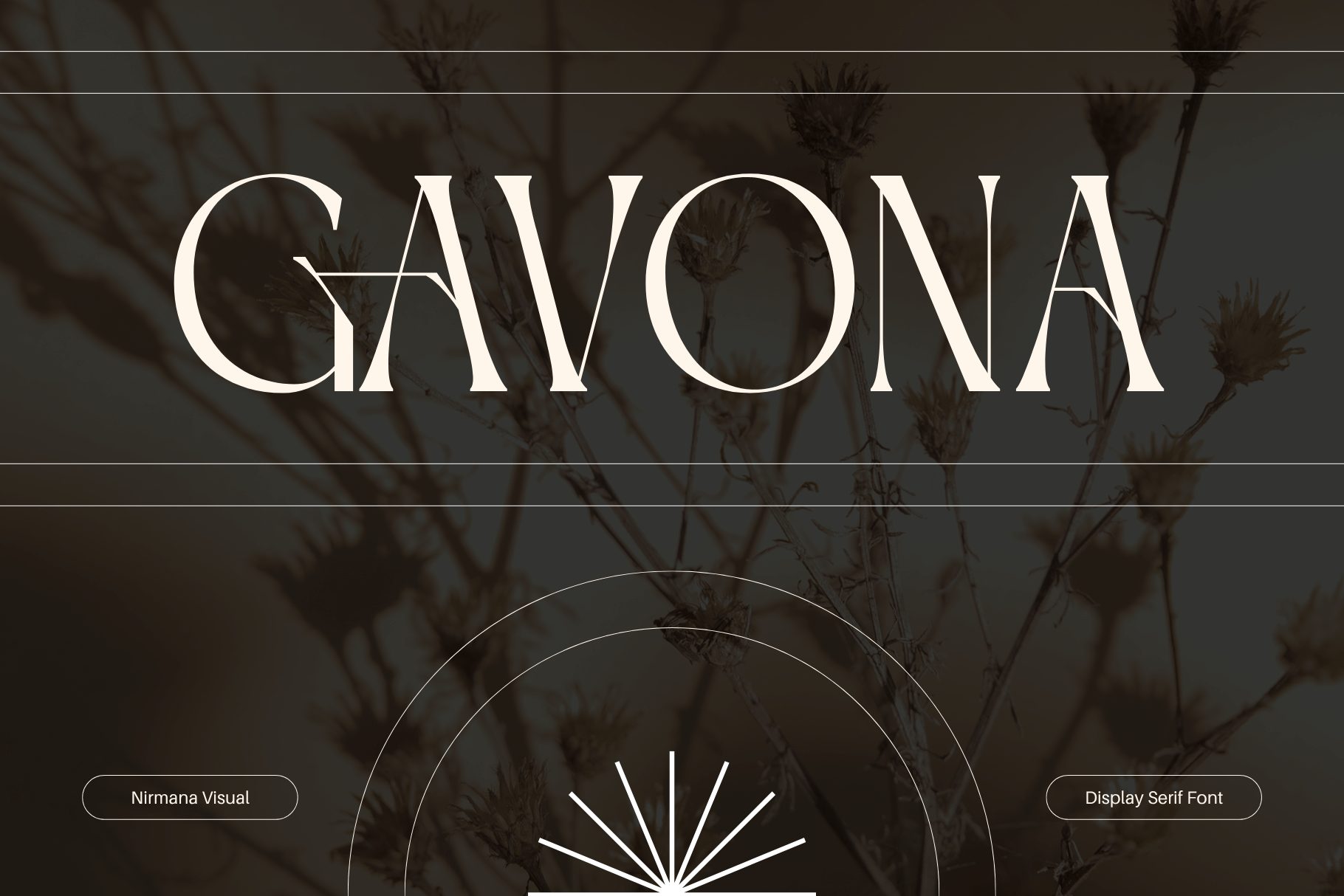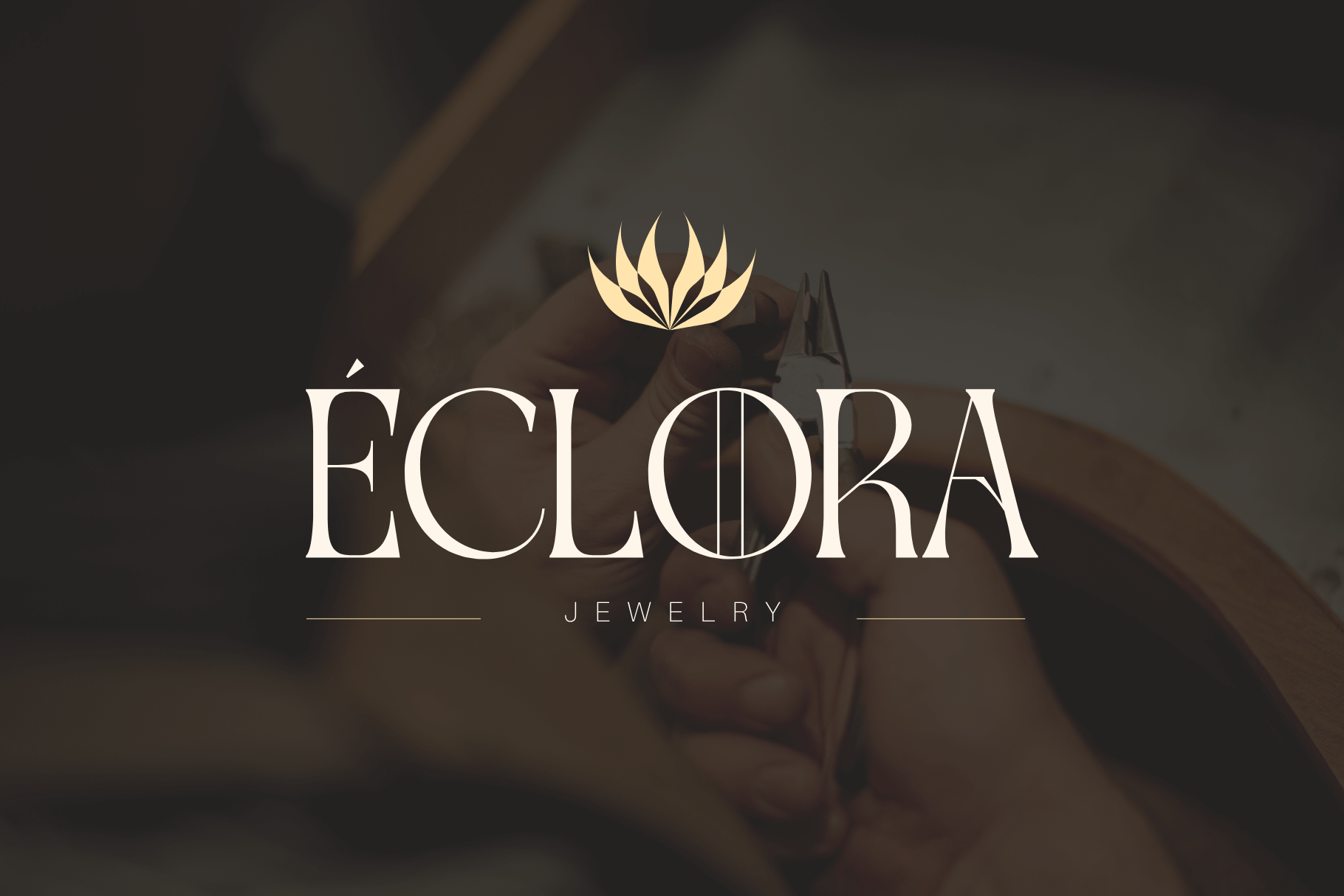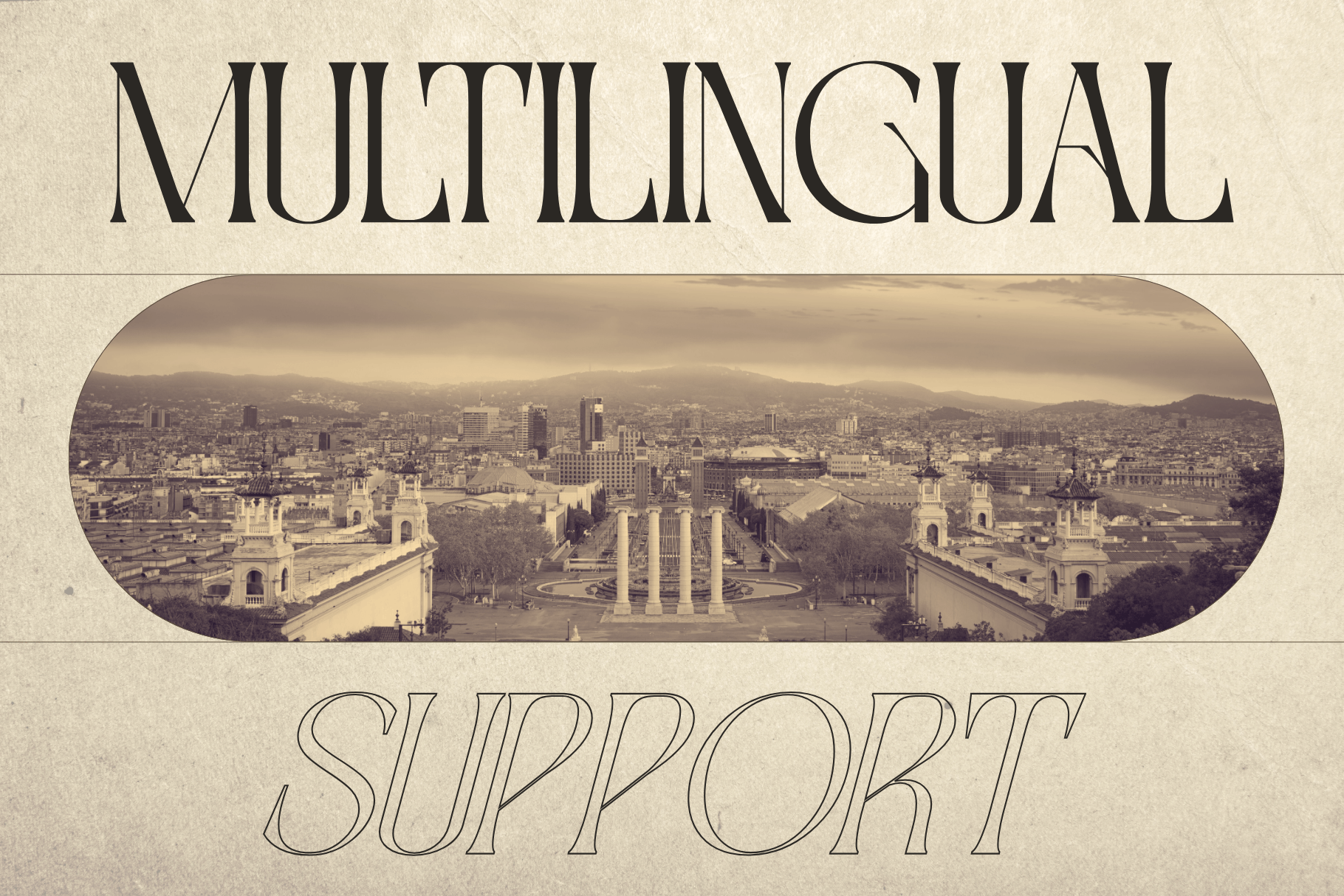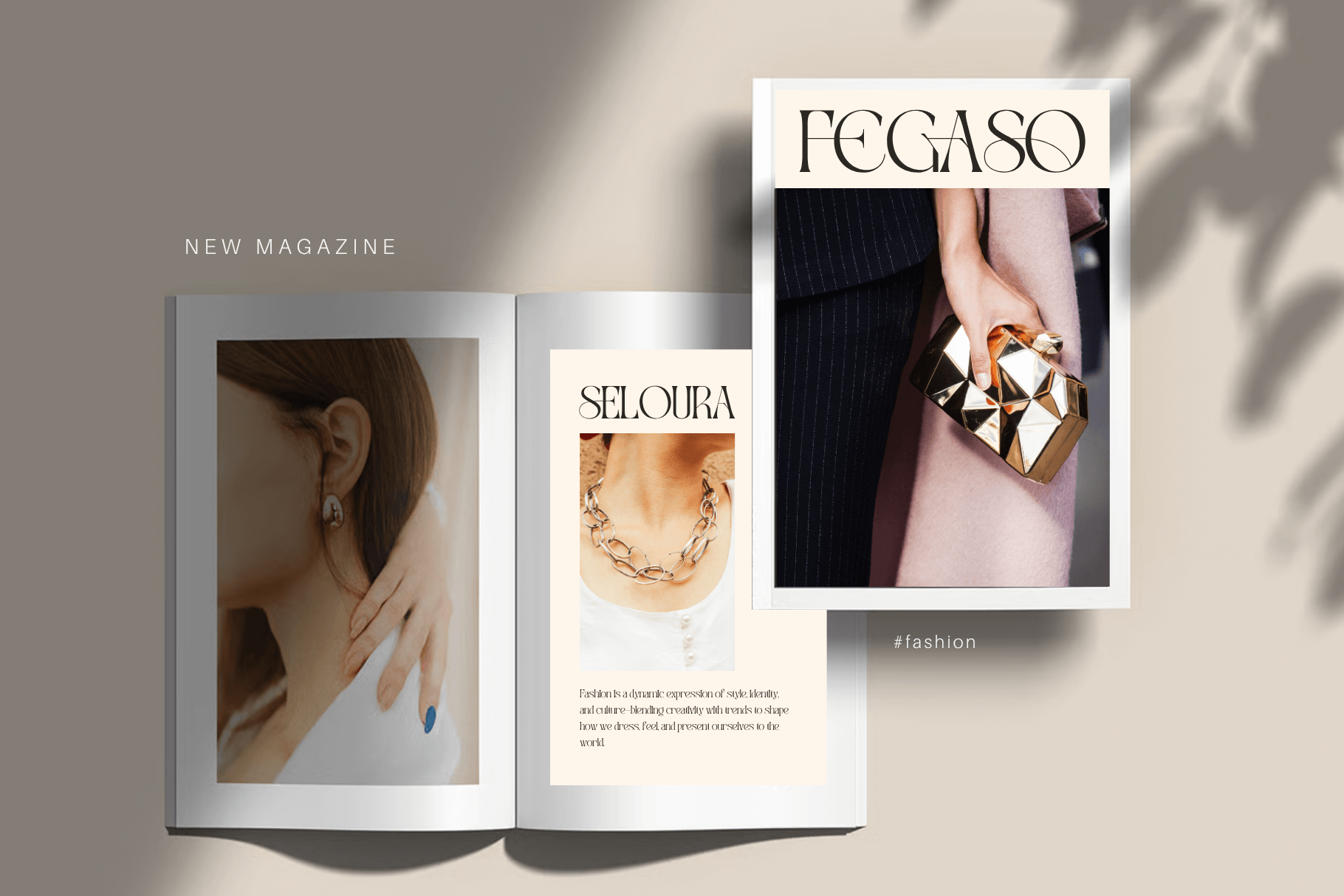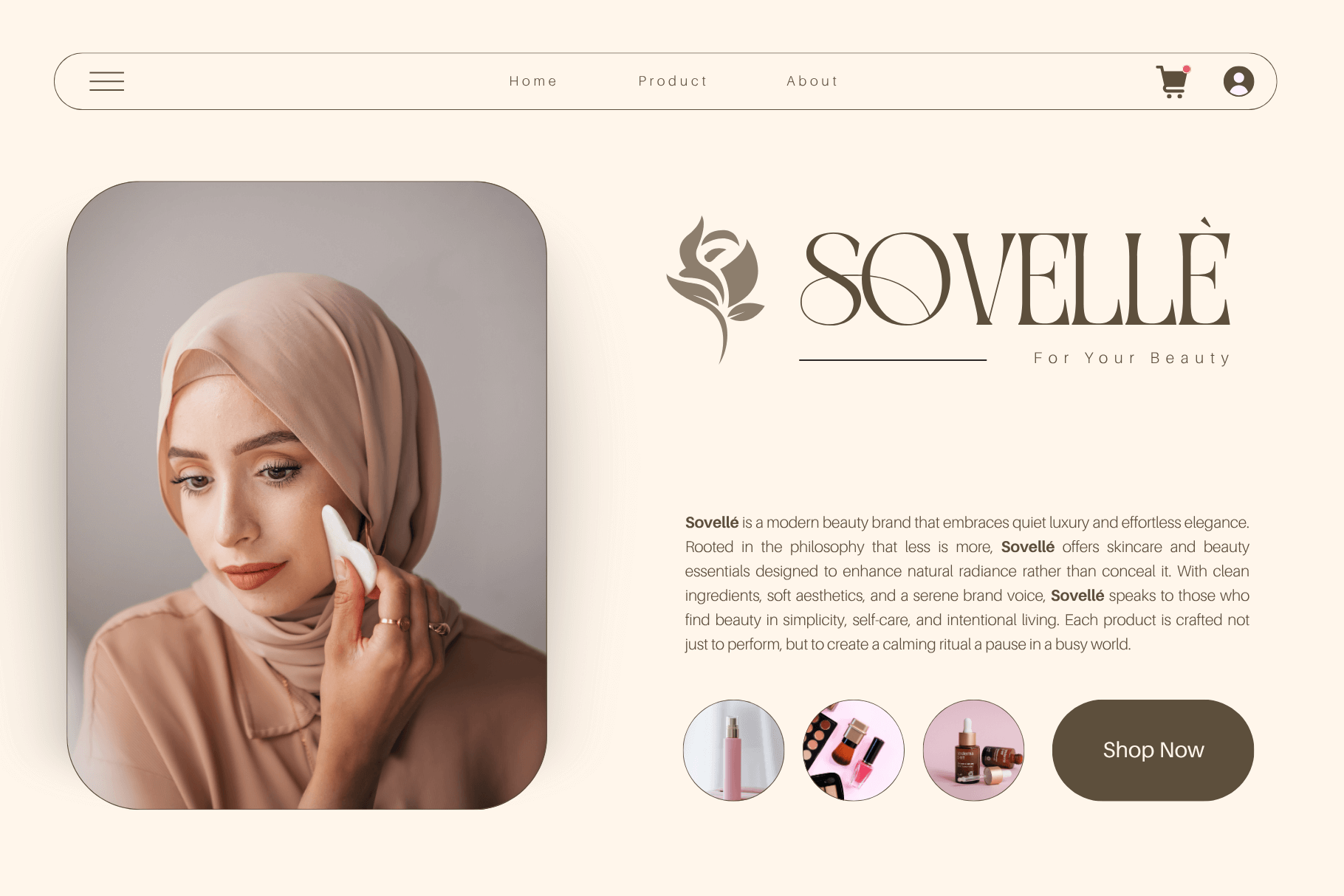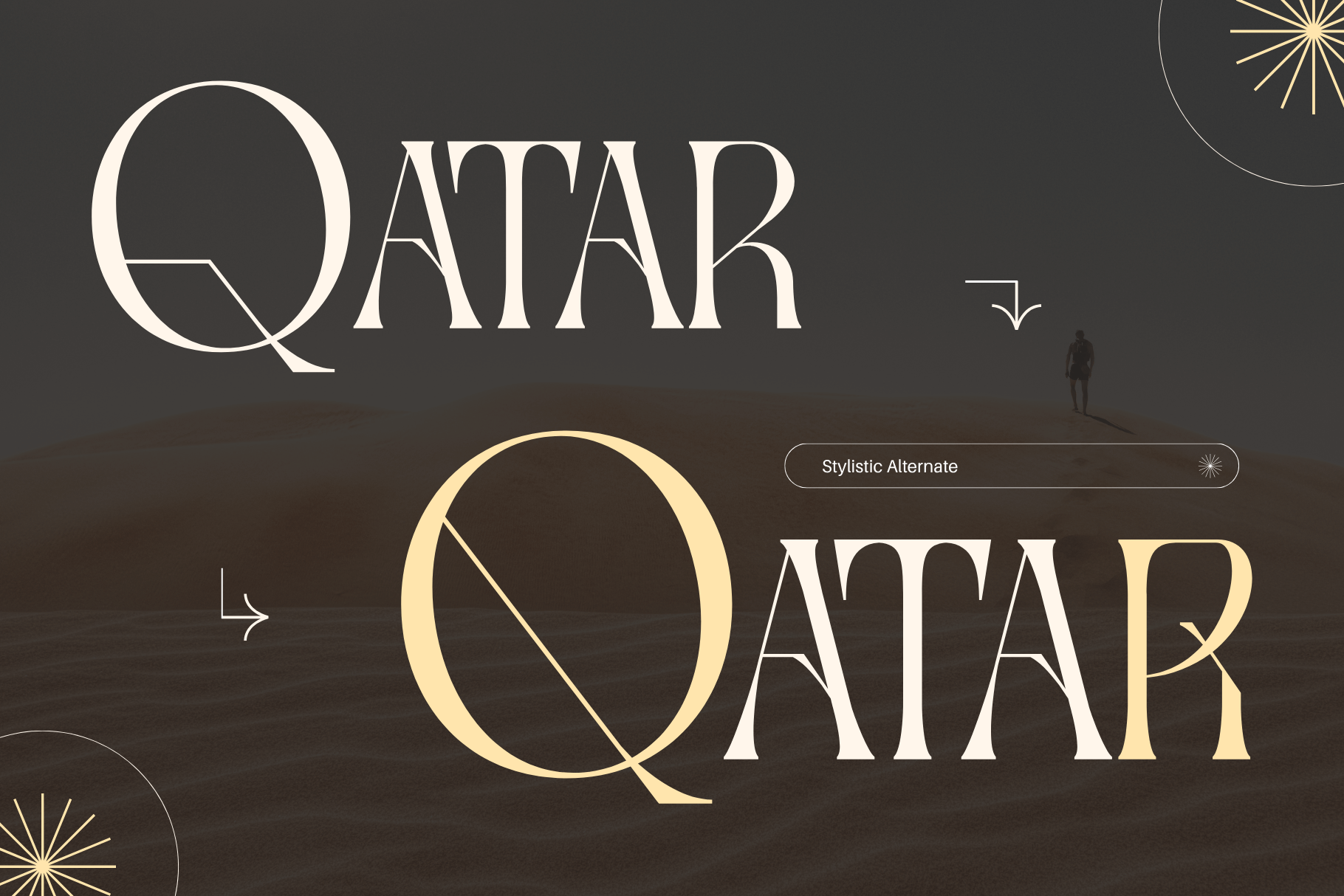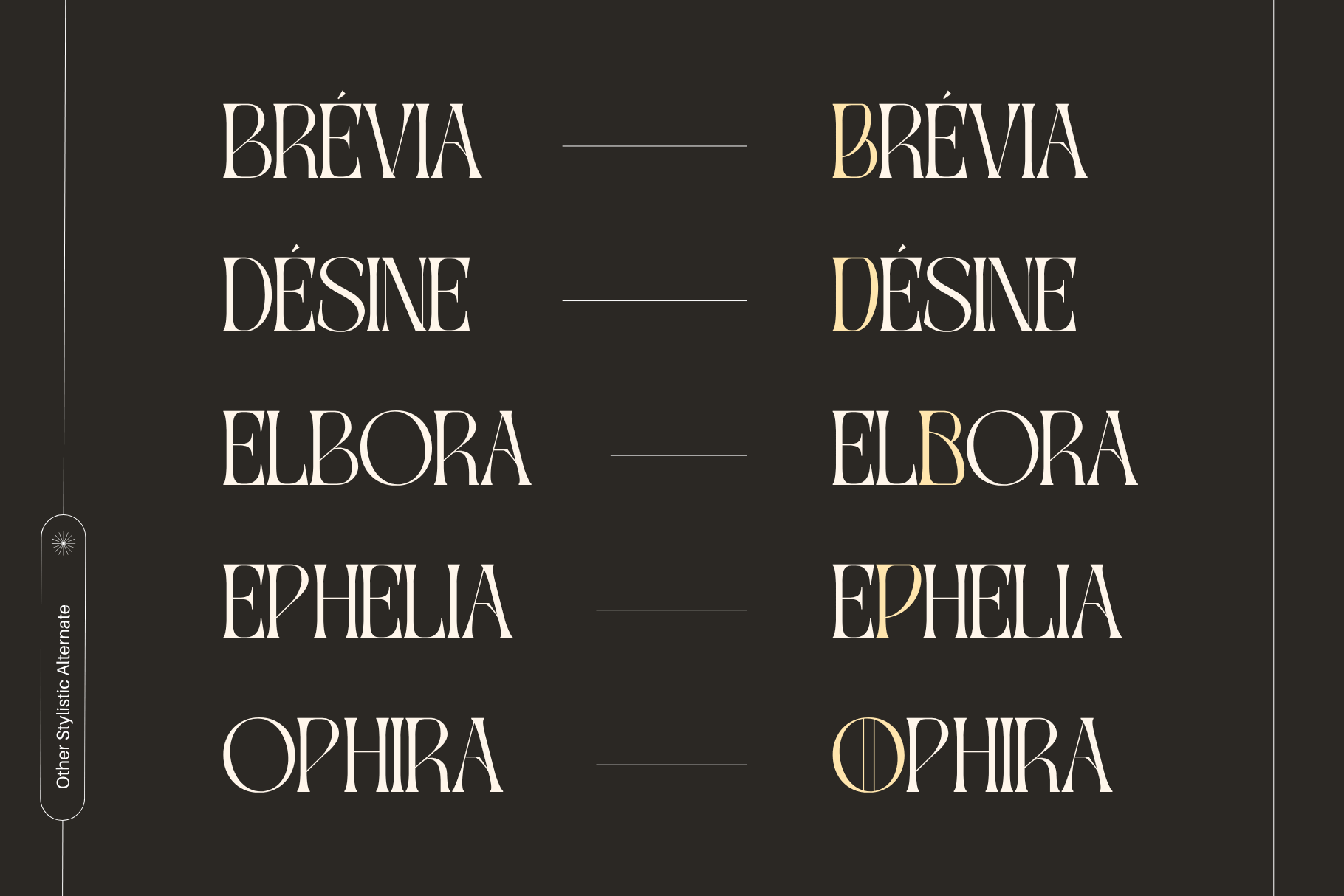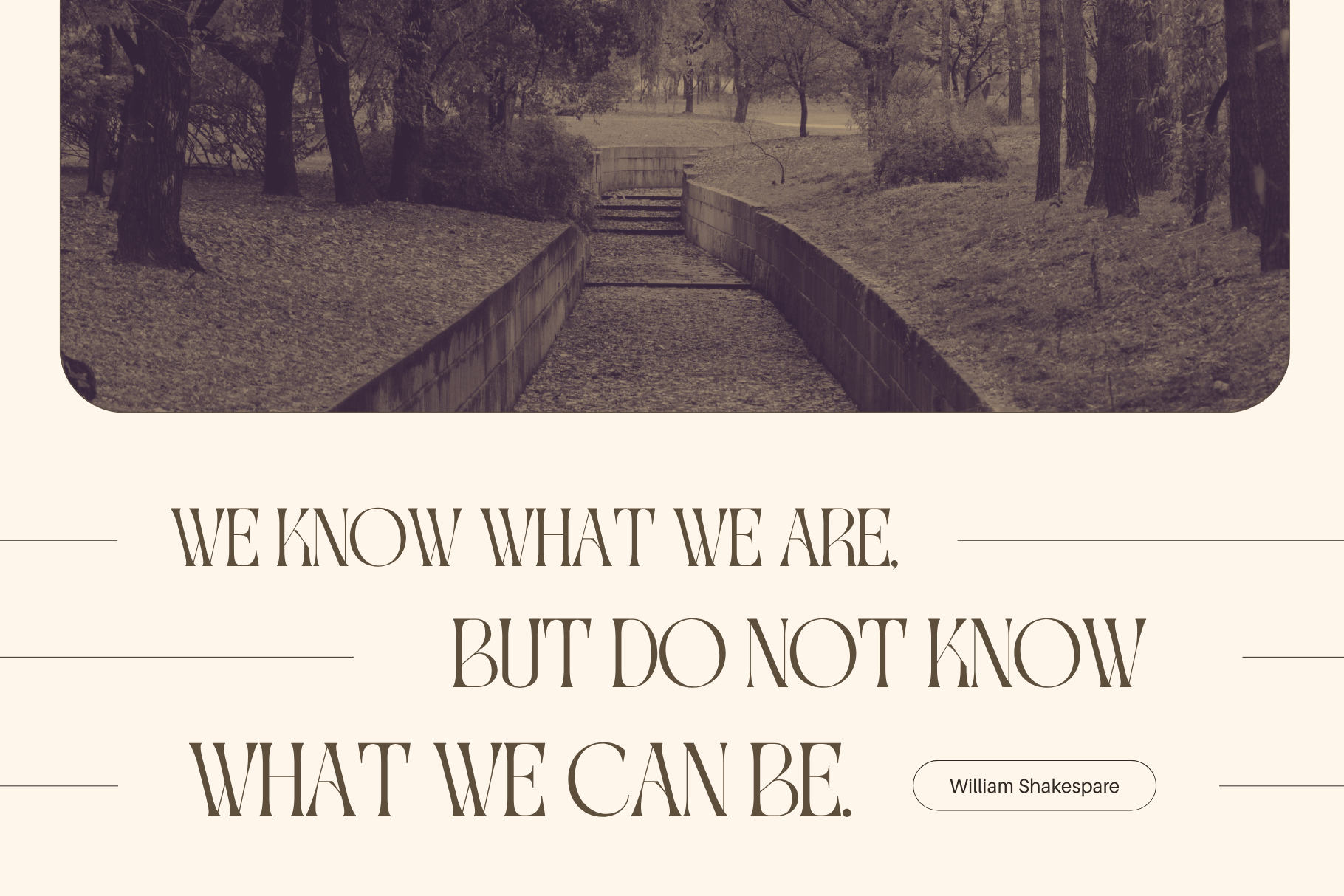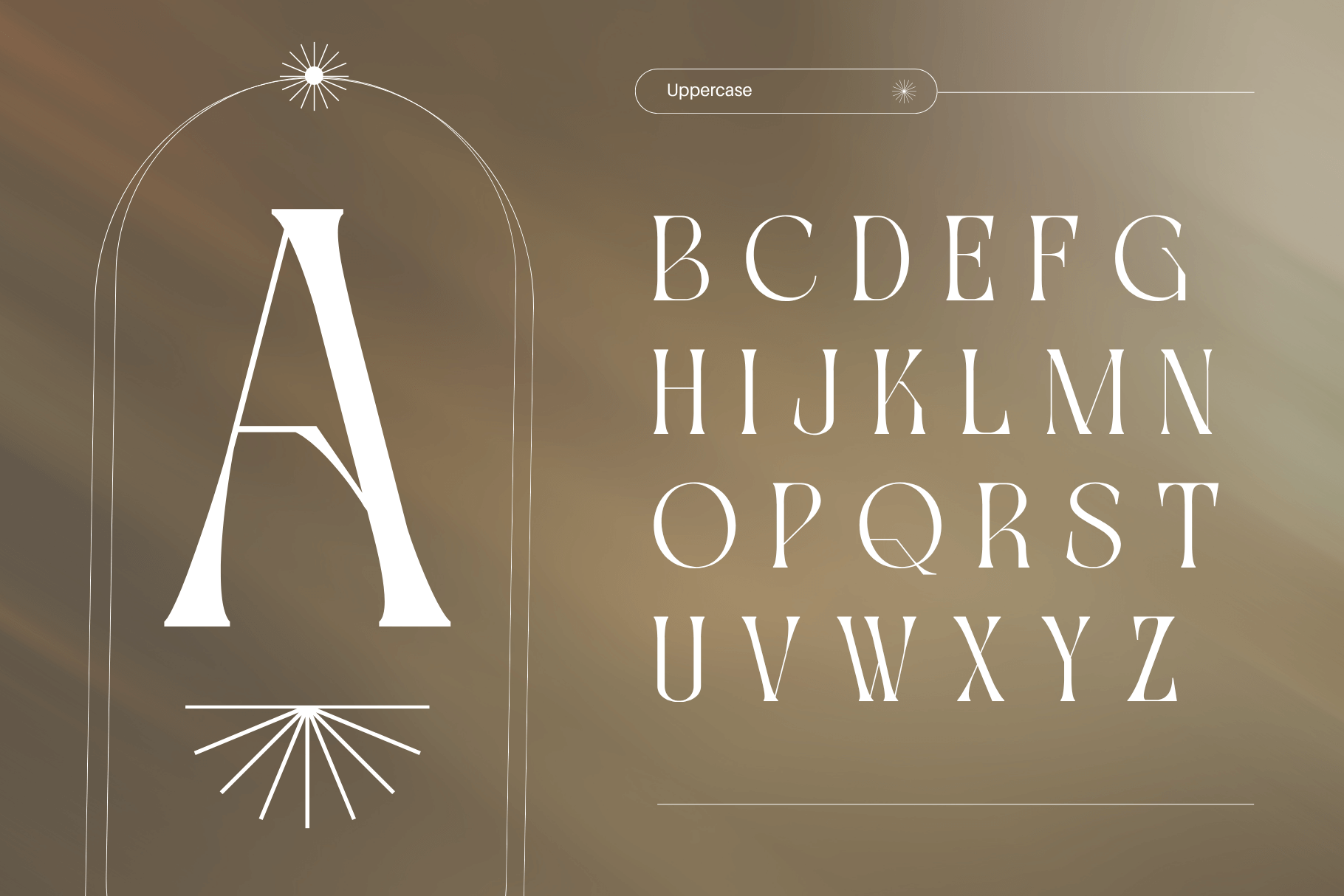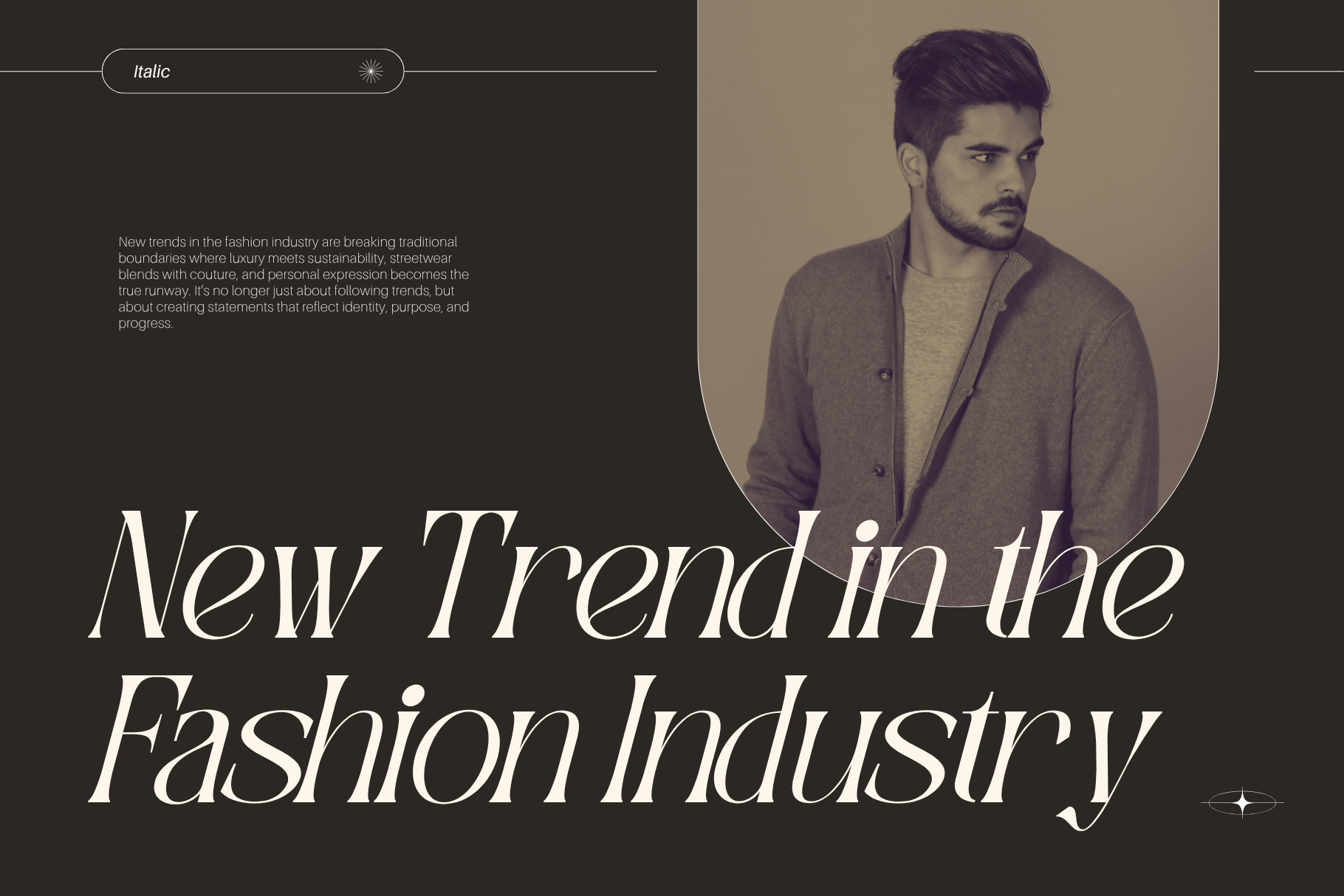
Introducing a modern serif font designed for timeless elegance and powerful branding. With refined, stylish curves and high contrast strokes, this font blends classic charm with a contemporary touch—perfect for logos, branding, and editorial design. Available in Regular and Italic styles, it offers versatility and sophistication, making every project look polished, professional, and uniquely memorable.